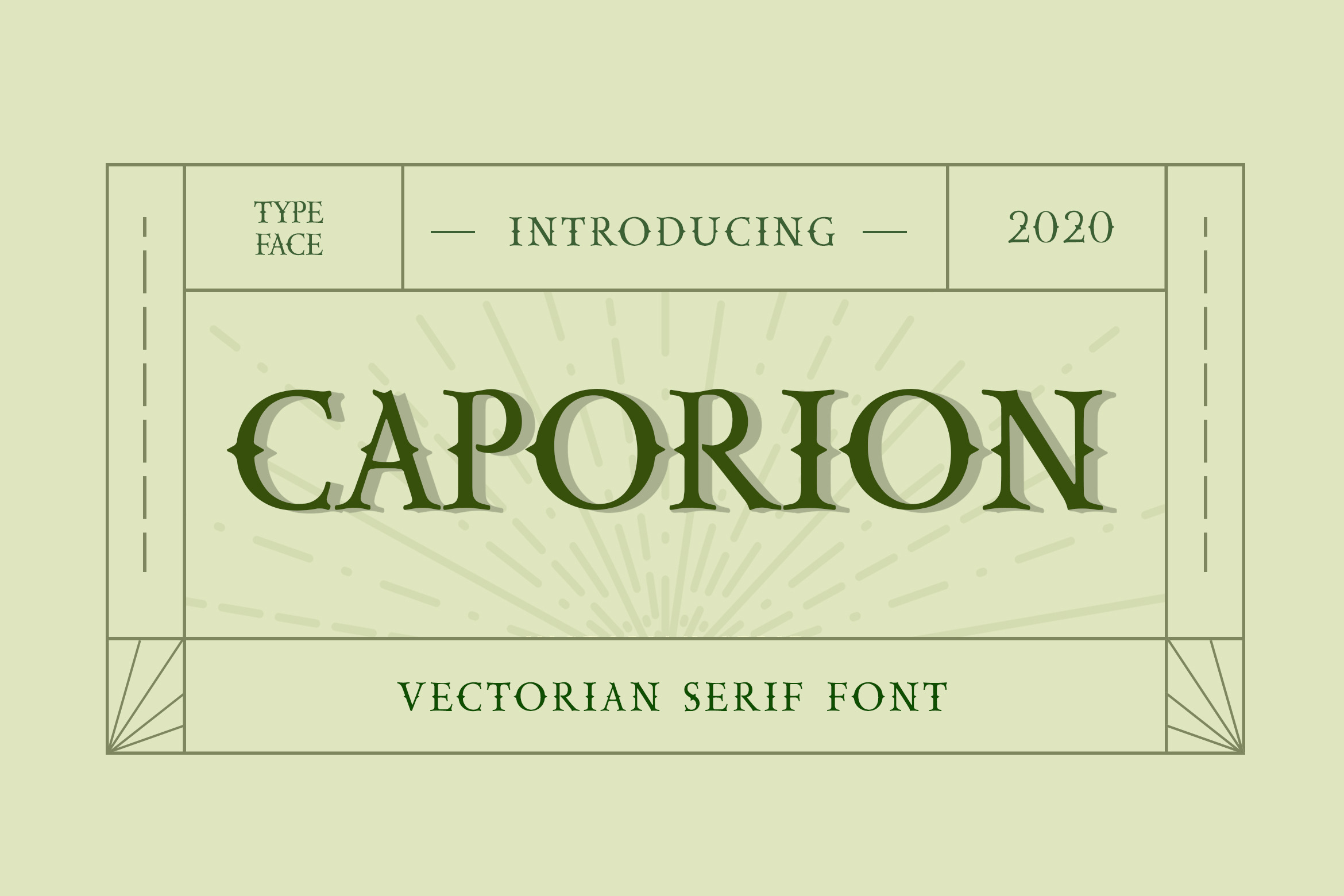
CAPORION Vectorian Serif Font
CAPORION is Serif Font and also has vintage display font. Can make it easier to convey the message in your design. Use for awesome display, labeling, clothing, movie screen, poster, movie title, gigs, album covers, headlines magazine, logos, and much more. It's also could be good for both fun and semi-formal text.